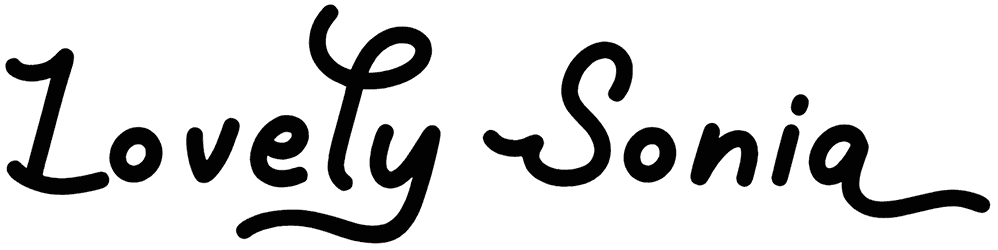
Lovely Sonia Font
Present your work enjoyable and playful way with Lovely Sonia, a bold, casual handwritten font with lots of fun and excitement. It doesn’t support numbers, but it has a cute, eye-catching display that attracts everyone’s attention easily.
This love font is well-suited for comic books, product packaging, cartoon posters, Valentine’s Day projects, and even advertising kids-related stuff. So use it and make charming designs without any trouble.